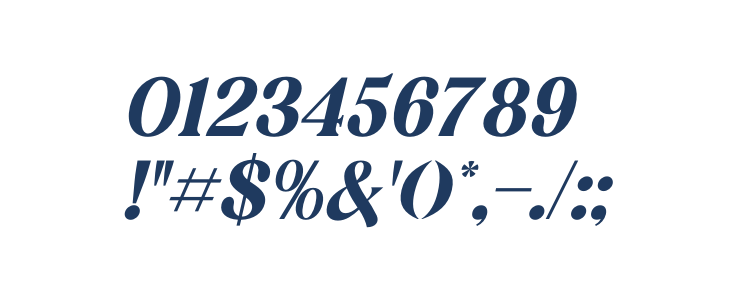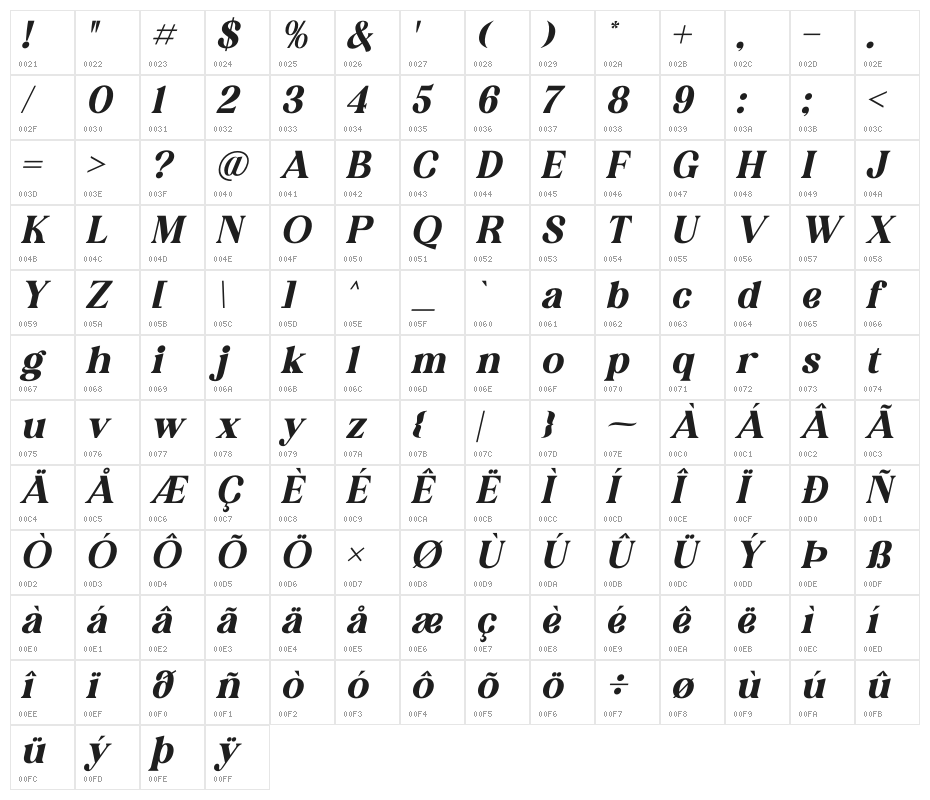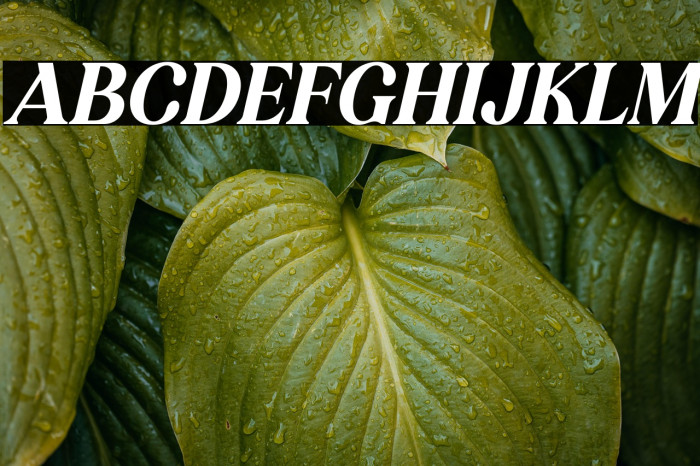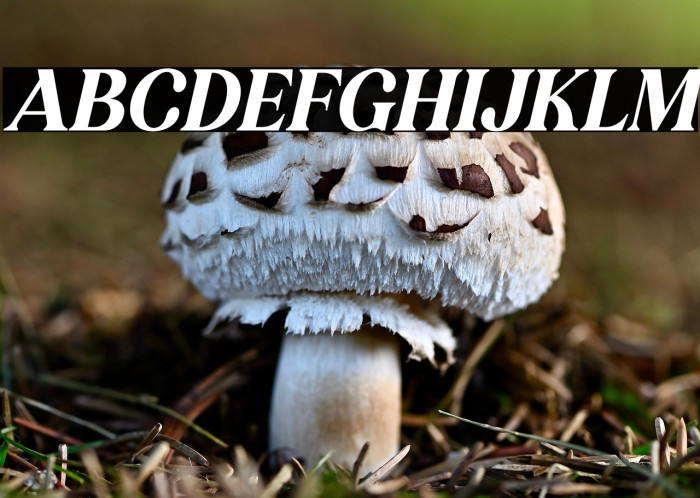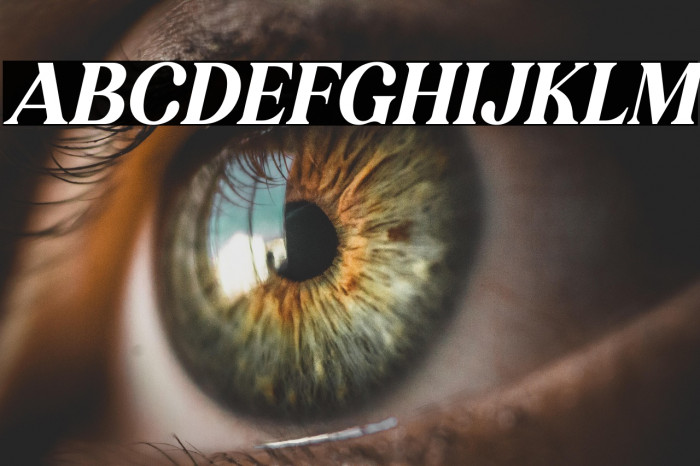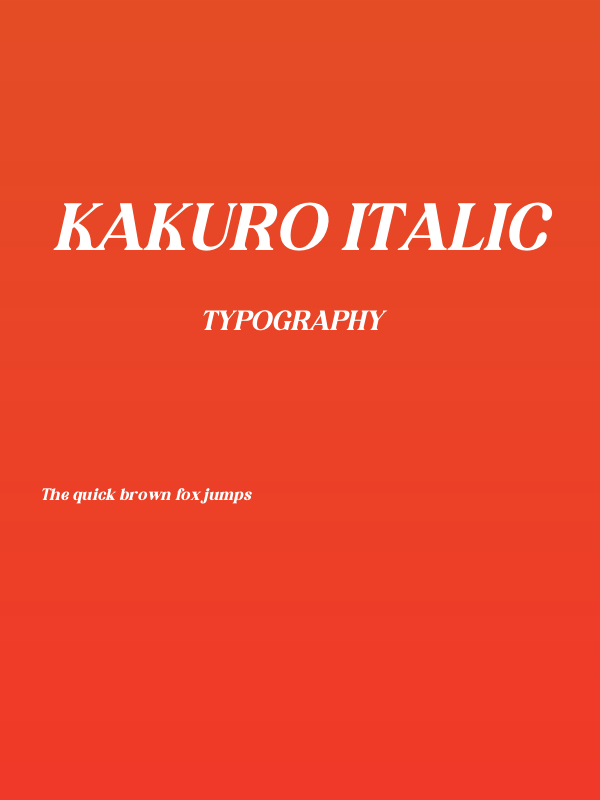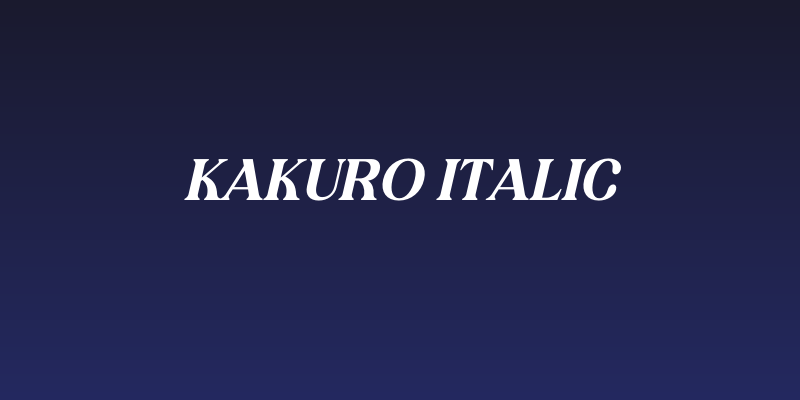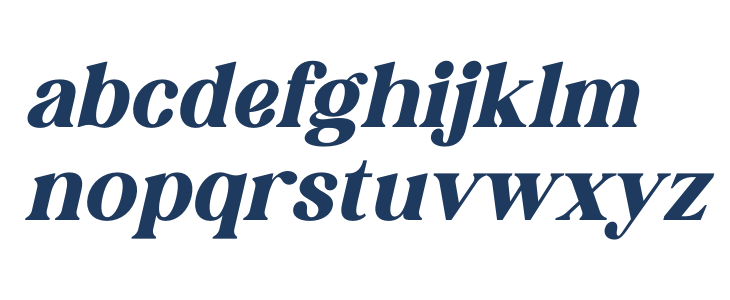
KAKURO Italic Font
KAKURO Italic Description
This font features a bold and dynamic italic style, characterized by its strong slanted letters and pronounced serifs. The uppercase and lowercase letters maintain a consistent slant, creating a sense of movement and elegance. The numbers are equally bold, with a uniform thickness that complements the letters. Special characters are designed with the same attention to detail, ensuring they blend seamlessly with the rest of the font. The overall appearance is both classic and modern, making it versatile for various design needs.
| Use Case | Headlines, Logos, Editorial design |
| Proposed Projects | Ideal for branding, headlines, posters, and editorial design where a strong, elegant presence is desired. |